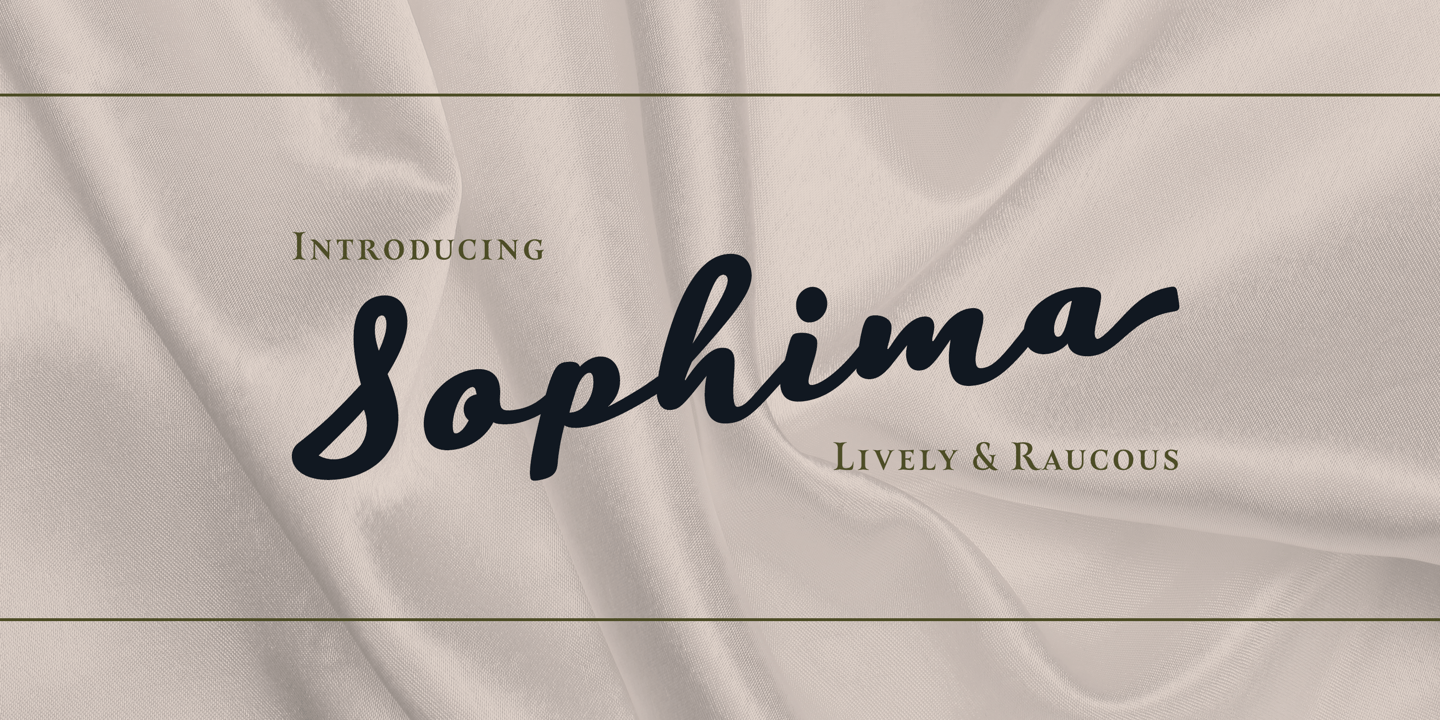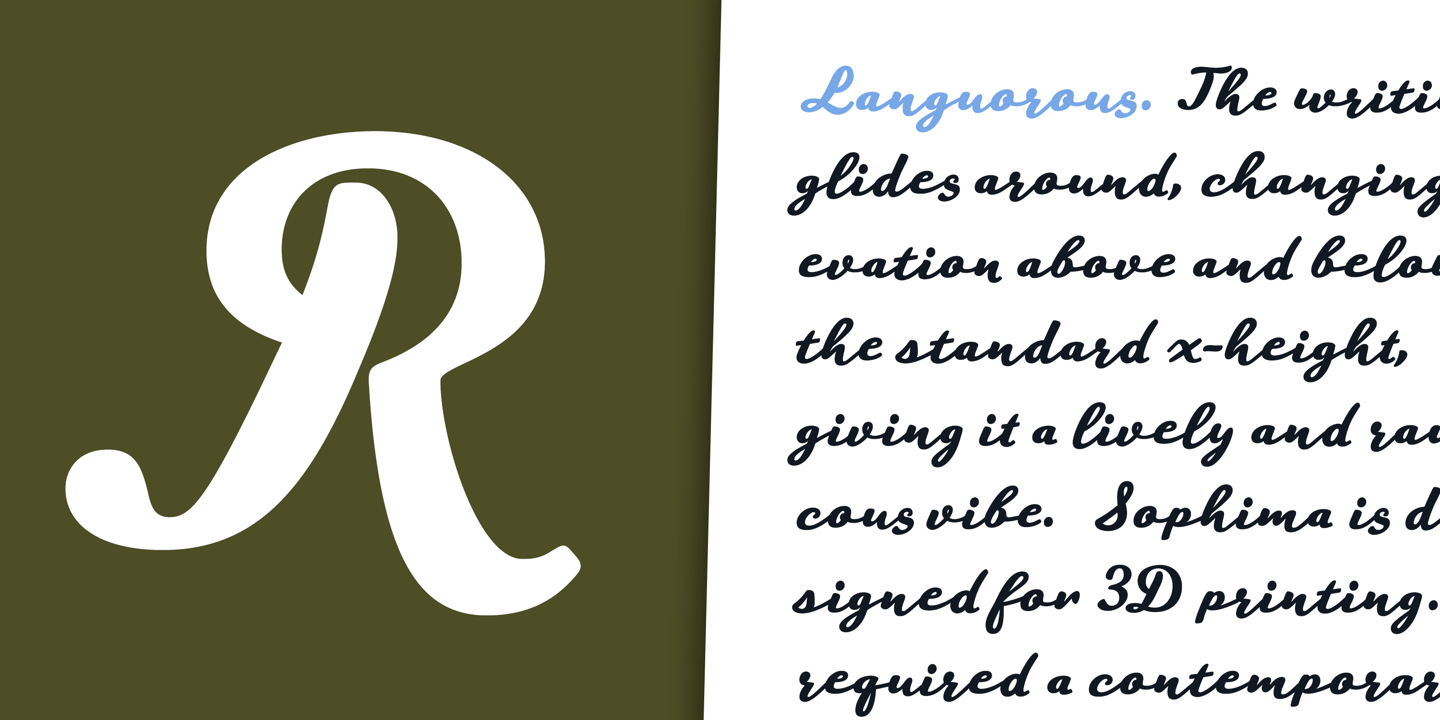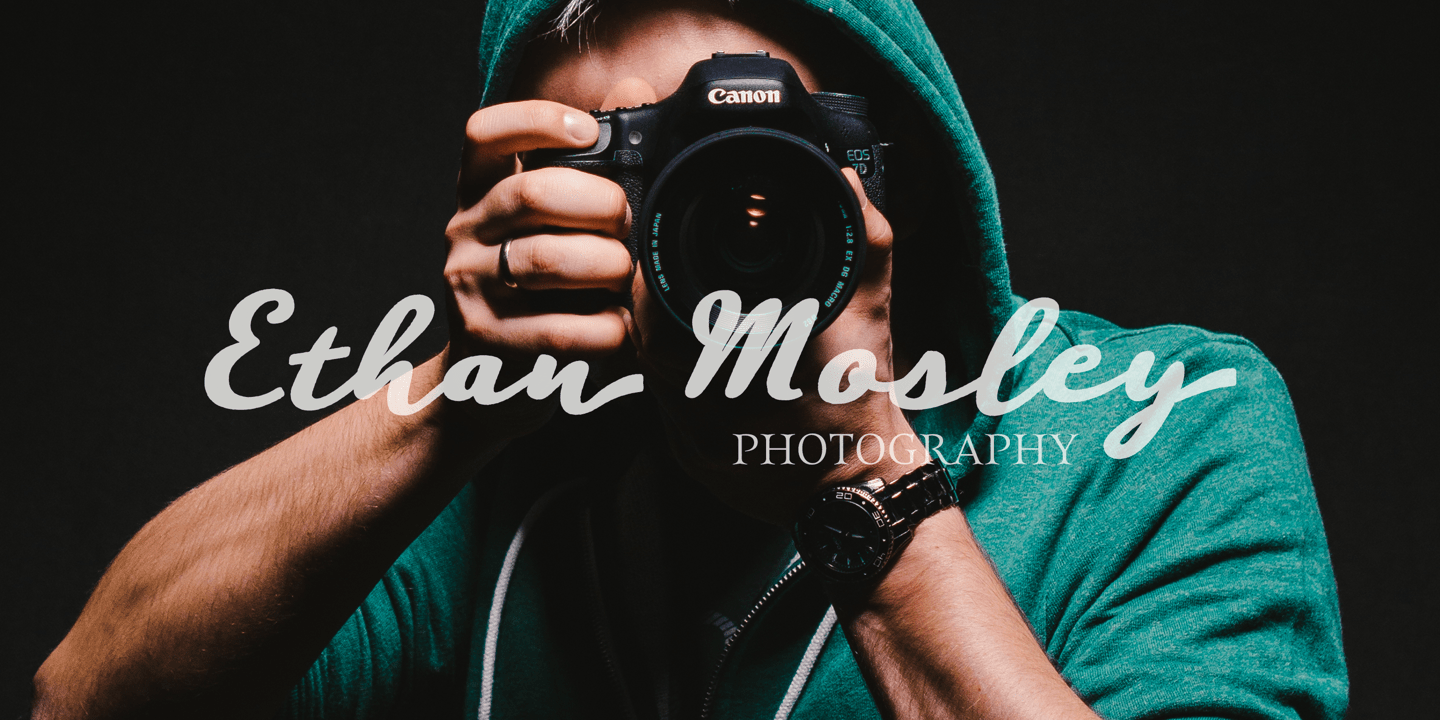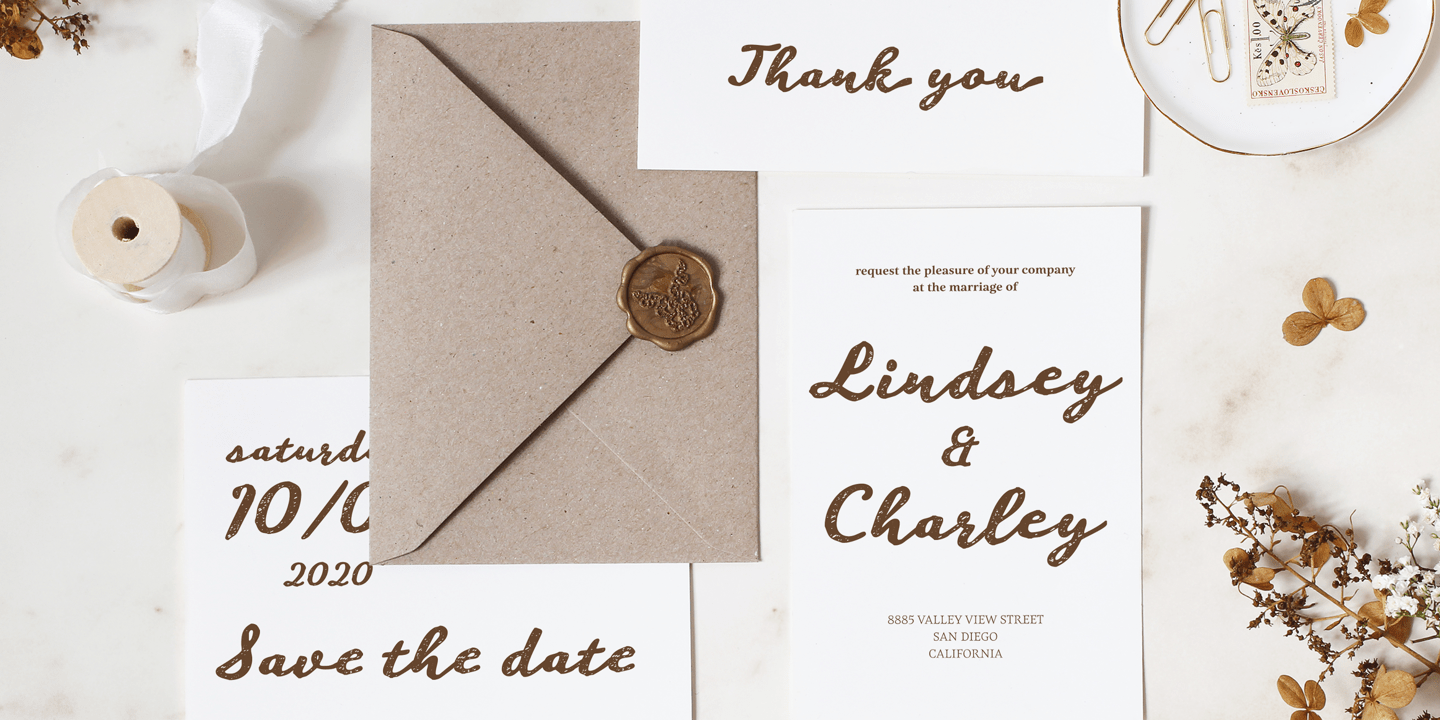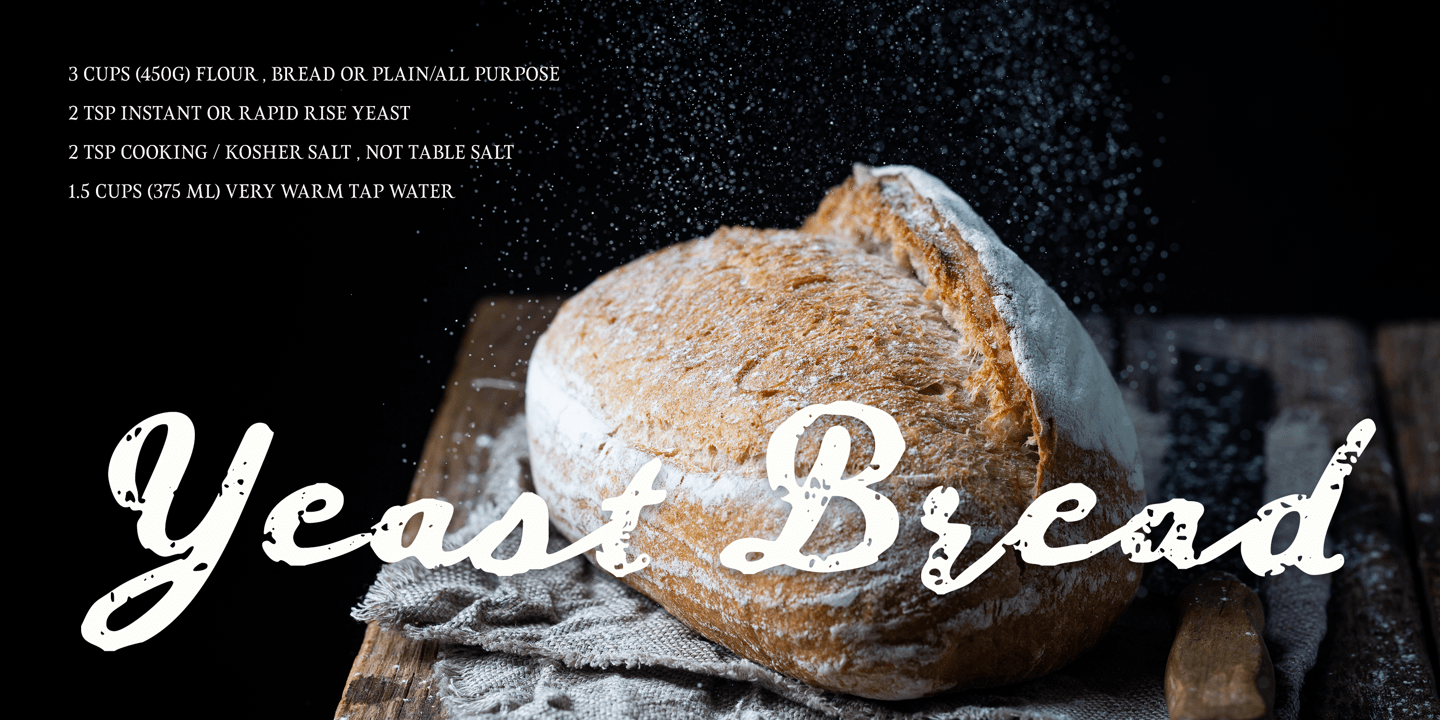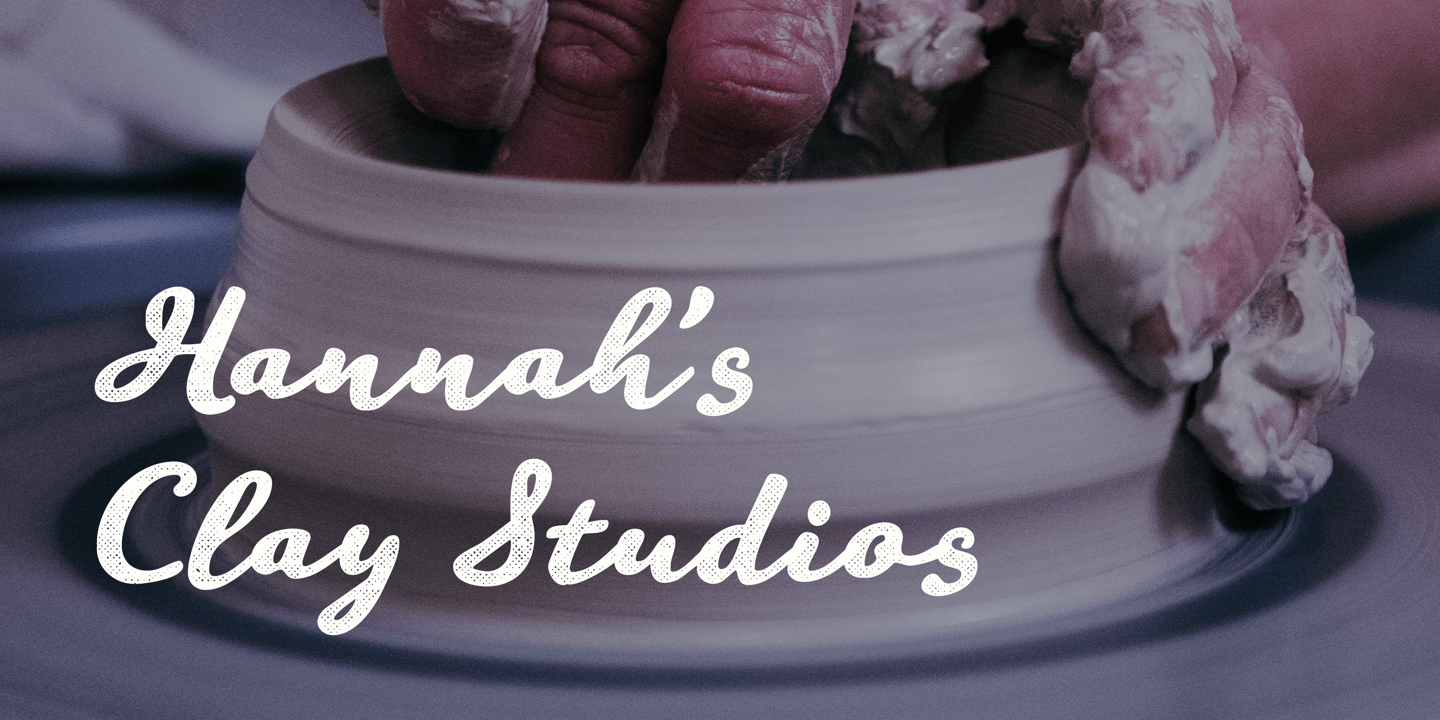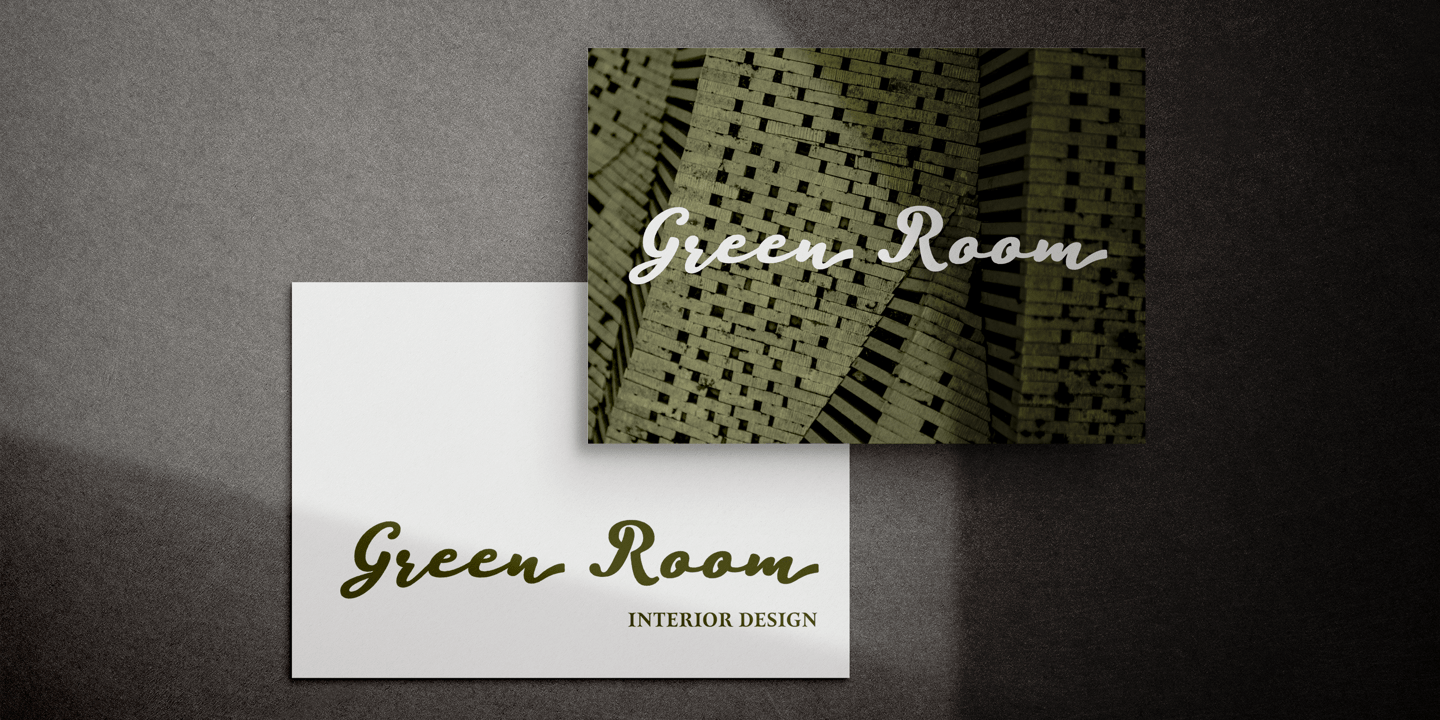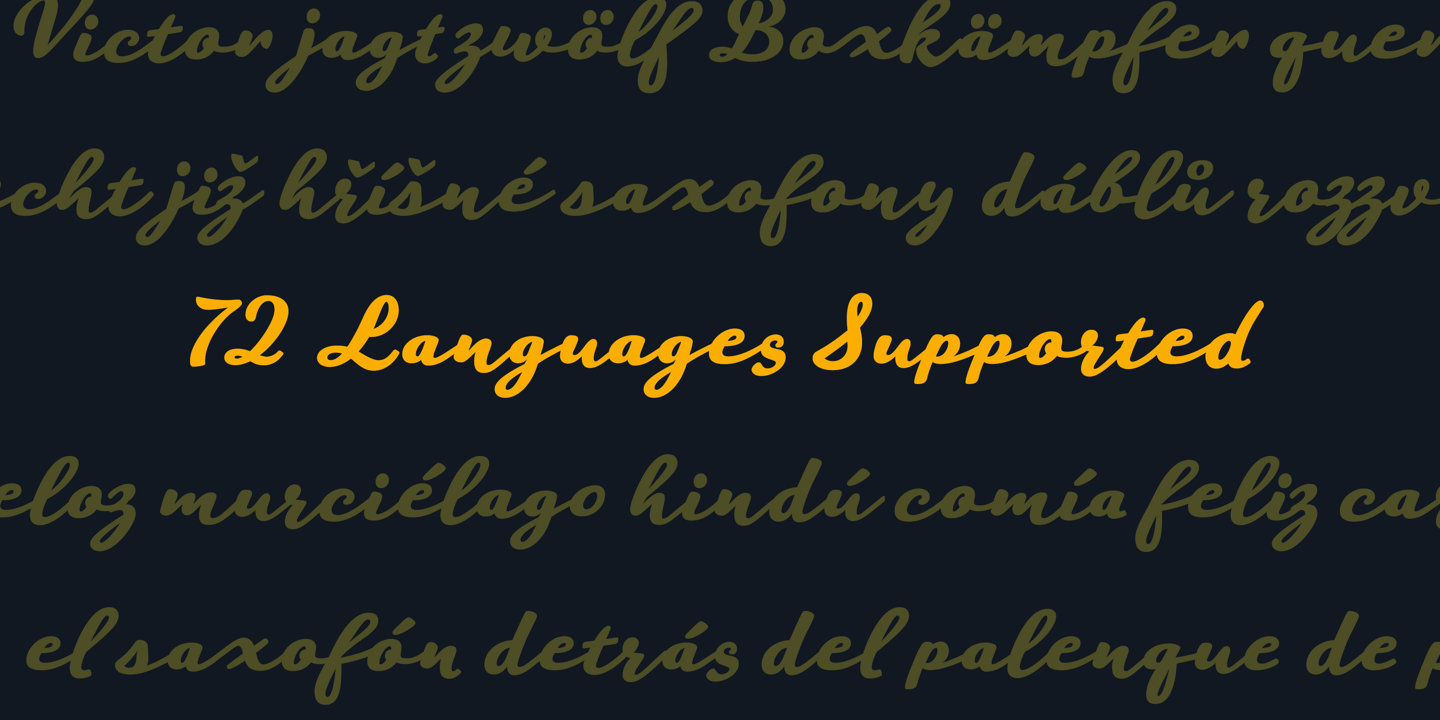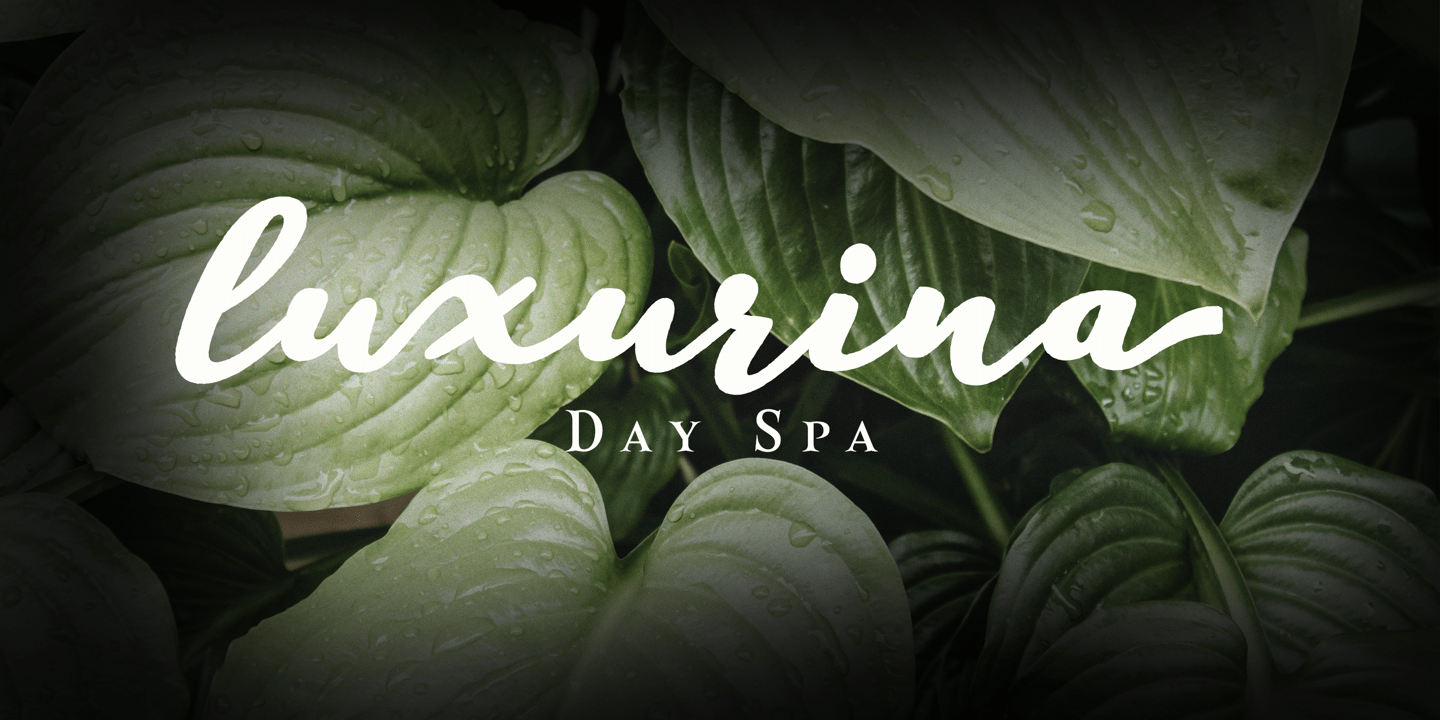
Sophima
Sophima exudes languorous luxury. The writing glides around, changing elevation above and below the standard x-height, giving it a lively and raucous vibe. Sophima is designed for 3D printing. I required a contemporary script with technical elements that could be printed using a 3D printer. This necessitates the use of quite thick linking characters. Another result of this technology was the need that all letters, including caps, be linked. Such letters are included in optional Opentype style sets. The unusual technological limitation gave the design a new and distinct vibe.
Sophima may be used for a variety of purposes, including headlines, weddings, social media, logos, posters, packaging, T-shirts, coffee shops, restaurants, magazine headers, signage, gift/post cards, caf